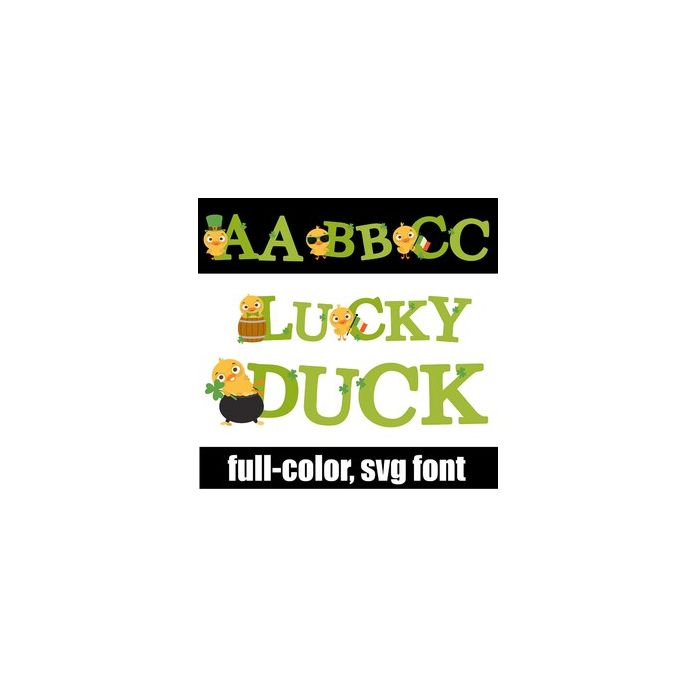
This full-color font features toggled, serif lettering with lucky ducks on the uppercase. There is an alt case w/ lowercase lettering you can access through your system or Silhouette's glyph map.